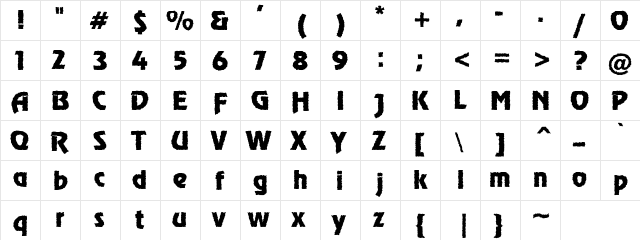
Grunge Siskel Normal Regular
Design Context for Grunge Siskel Normal Typeface
Grunge Siskel Normal trades polish for personality, using distressed and eroded forms to bring grit and attitude to creative work.
A strong fit for alternative music projects, graffiti-adjacent design, and anything that deliberately resists polish.
Pro Tip: Use Grunge Siskel Normal at larger sizes where the texture and irregularity of each letterform can be clearly seen — it loses its character at small sizes.